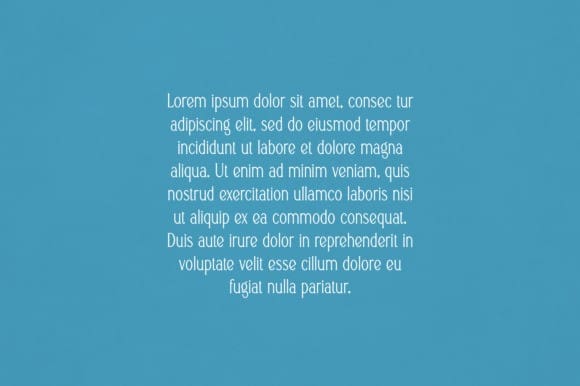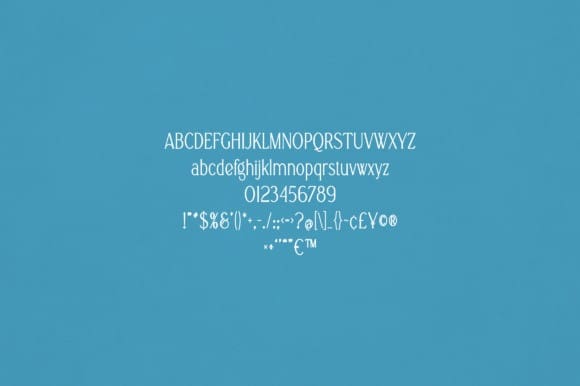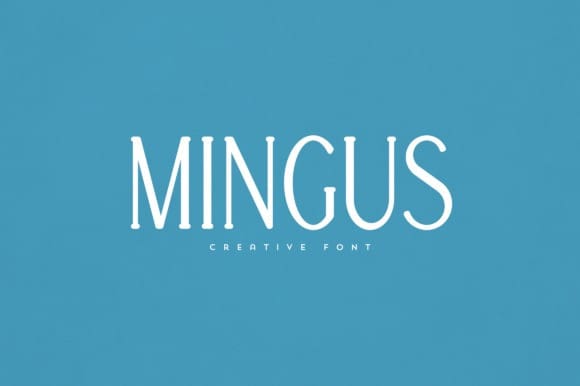
Mingus Font
Mingus Font is an elegant and versatile font that will make your typography truly unique! It will enchant every logo, branding, headline, or plain text!